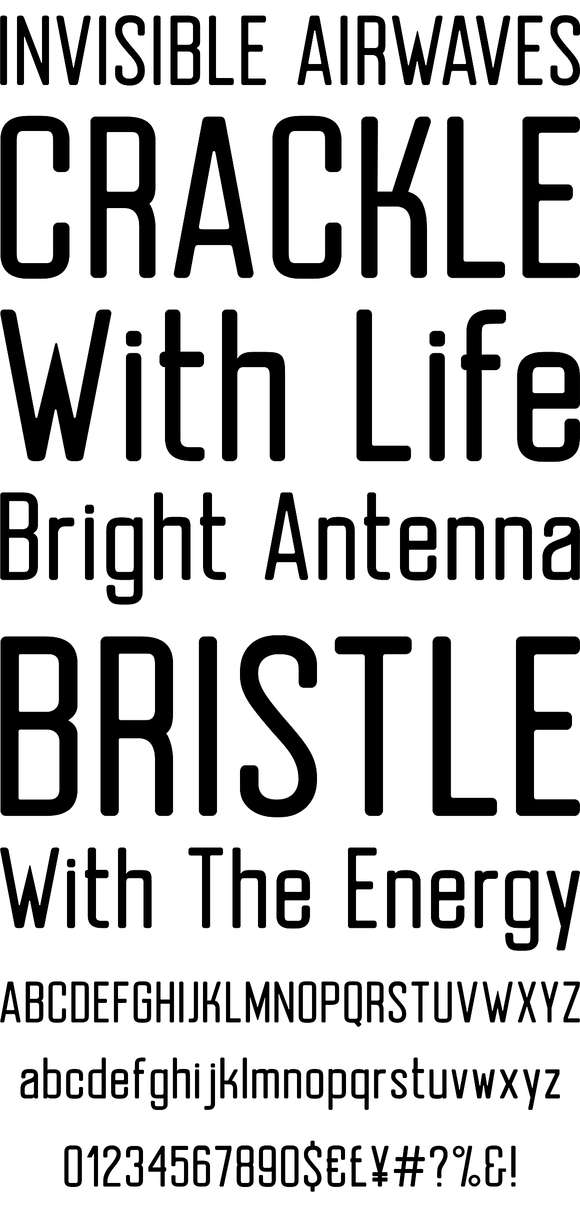
Erazm Simple Font
Simple, modern font. Very nice in the reception, because of the rounded corners.
Font Erazm Simple is designed in four versions - ower and uppercase characters.